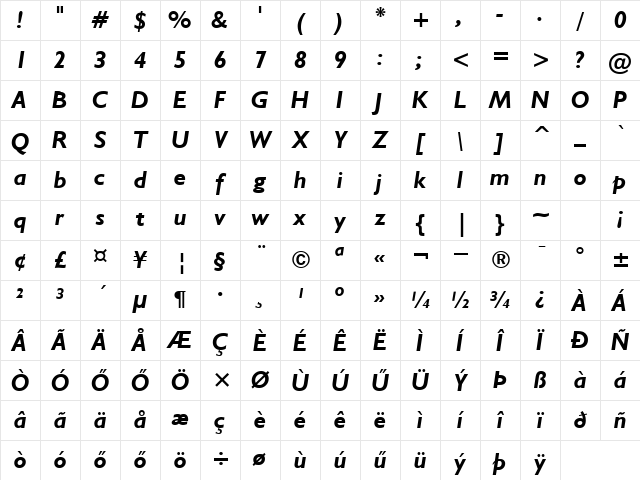
H_Humanist 521 BT BoldItalic
H_Humanist 521 BT Family
Complete H_Humanist 521 BT BoldItalic glyph index. Displaying only characters natively supported by H_Humanist 521 BT BoldItalic font.
Design Context for H_Humanist 521 BT
H_Humanist 521 BT is a composed and adaptable typeface that performs quietly and consistently across a wide range of design contexts. The slanted form adds forward momentum and visual energy. Its bold stroke weight gives it real presence on the page.
Pro Tip: Use H_Humanist 521 BT for emphasis, pull quotes, and subheadings where its slanted energy can add rhythm to the layout.